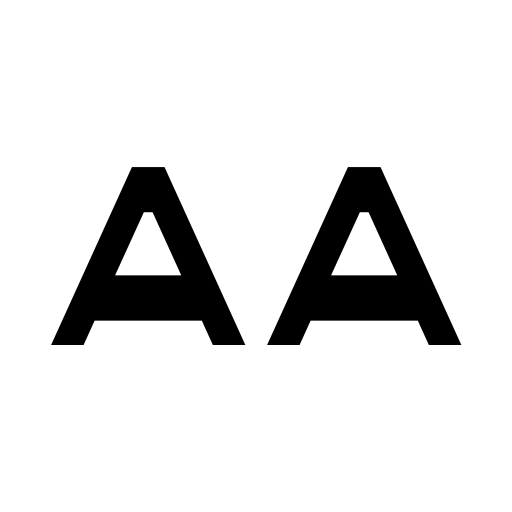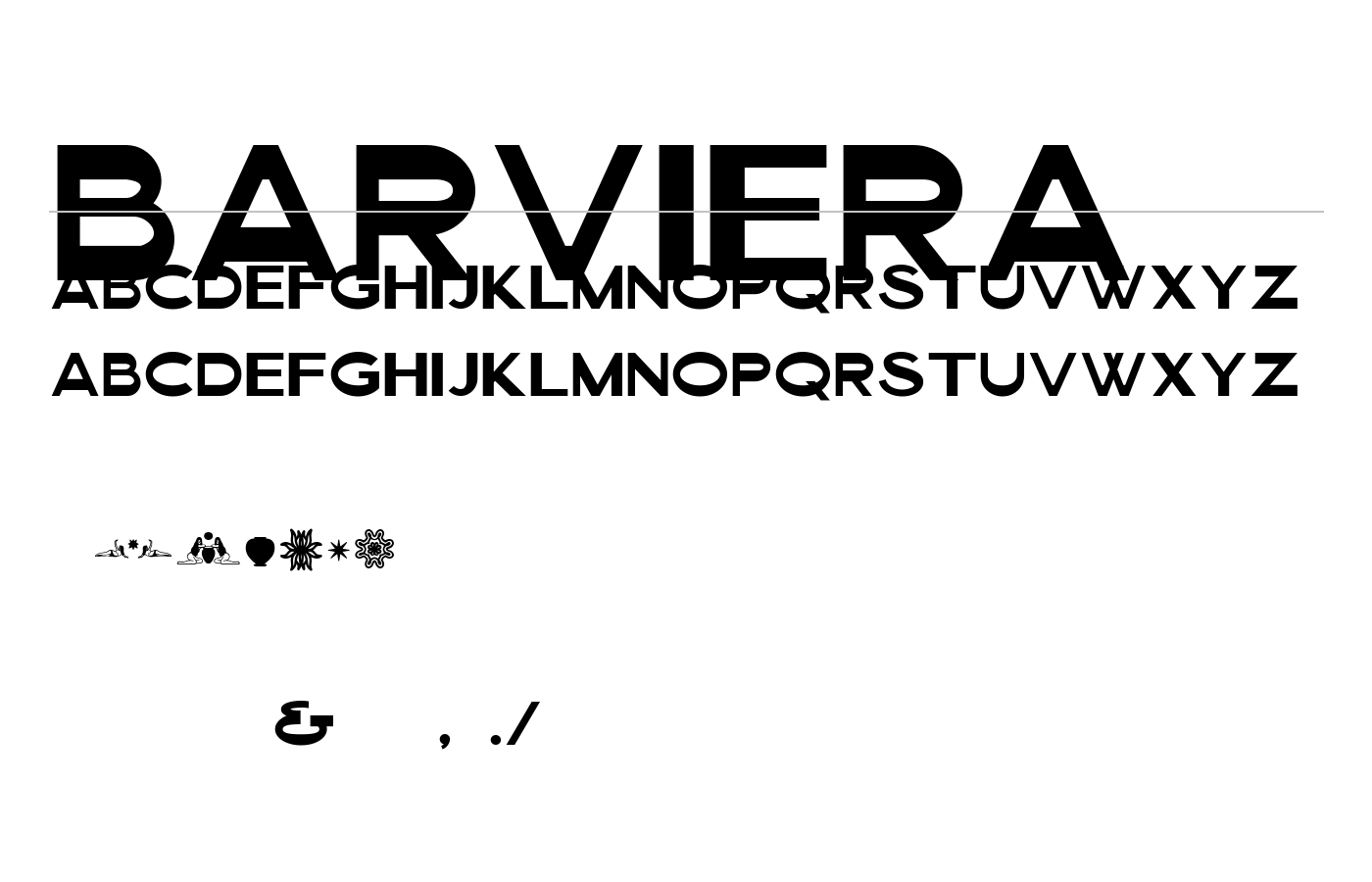
Barviera is a bold, modern sans serif font with a strong geometric influence, featuring clean lines and a sturdy, wide stance. Its distinct sharp angles and consistent stroke weight give it a contemporary and confident feel, making it ideal for striking headlines, branding, and editorial use where clarity and impact are essential. This font works especially well for fashion, luxury, and modern corporate identities seeking a stylish yet assertive presence.
About Barviera Font